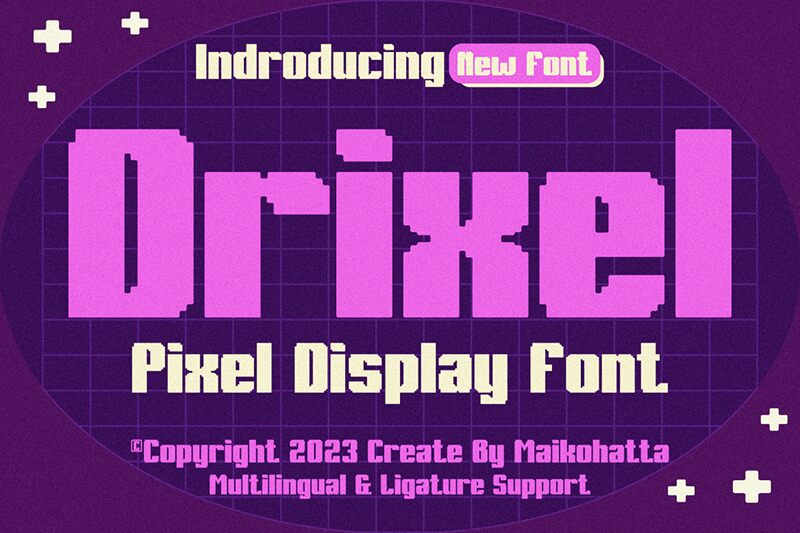
DRIXEL
Drixel font by Gilang Ternadho is a bold, condensed techno free typeface that will make a useful tool in your designing journey. The display font has an authentic futuristic look achieved with slightly curved edges and diagonally cut letter angles that make it so recognizable.
Due to its uniqueness, Drixel would work great on covers, video games design, posters, stickers/labels design, cards presentation, movies designs and teasers among others. Use it wherever you see fit for professional or personal projects!